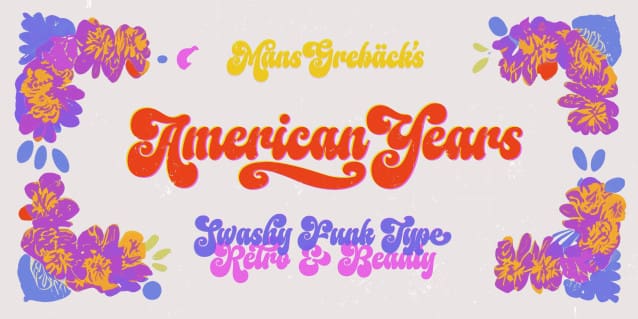
American Years Font
American Years Font is a font dipped in the ’70s. Like a vinyl, it’s nostalgic, authentic, and full of character.
Use underscore _ after any word to make a swash.
Example: Retro_
Use multiple underscores for a longer tail.
Example: Funkie____